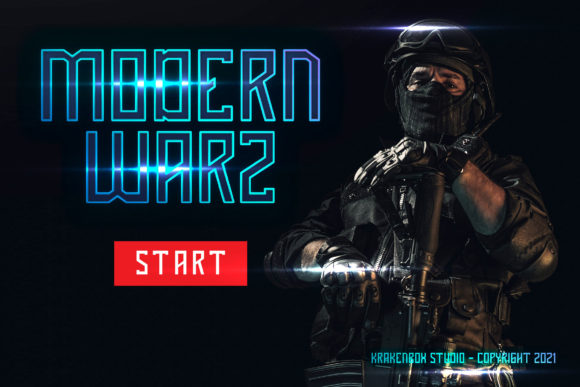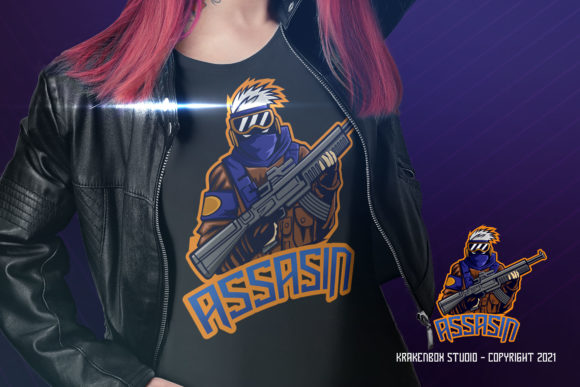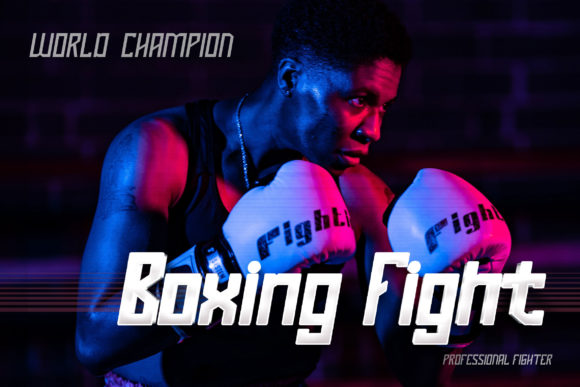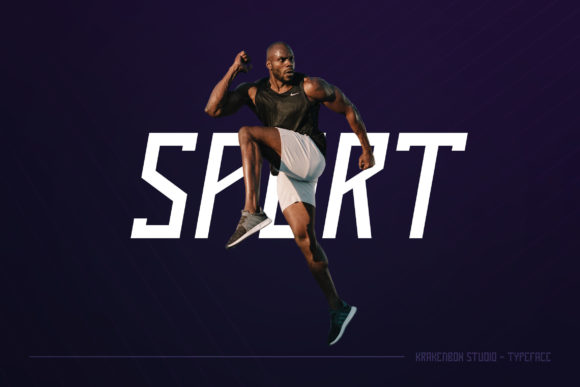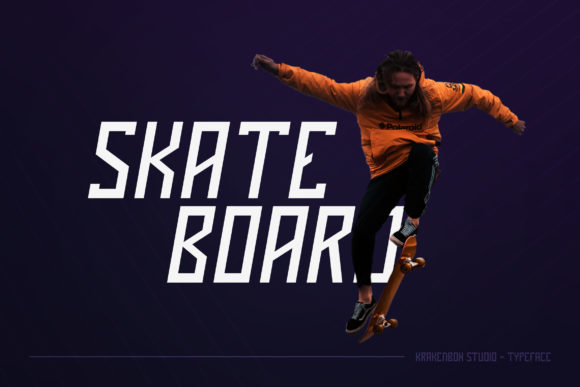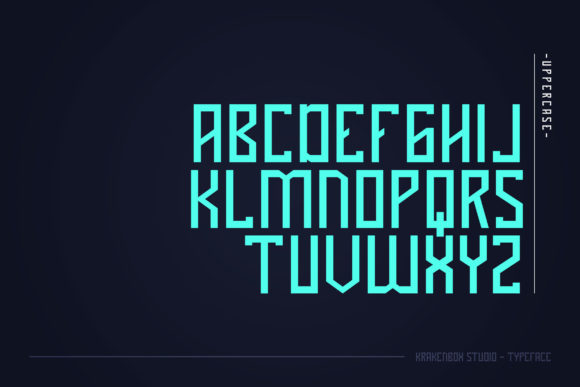
Introduction to Assasin Aerox Font
Assasin Aerox is Sports Display Typeface.
It has elegant, modern, and Cool It’s a great font for fashion, apparel projects, signature, album cover, logo, branding, magazine, social media, & advertisements, but it also works great for other projects.